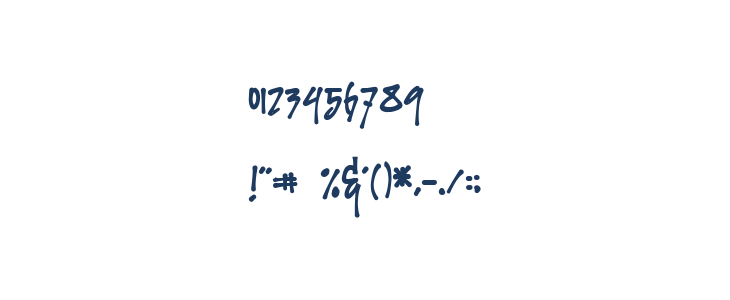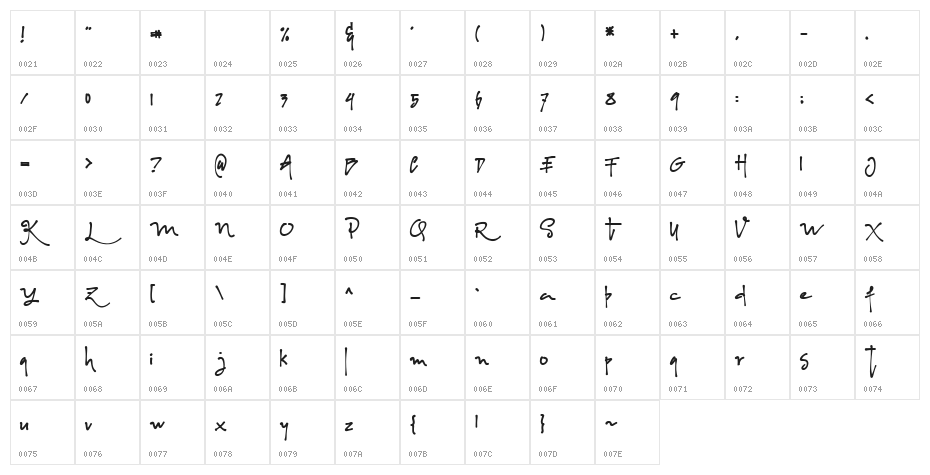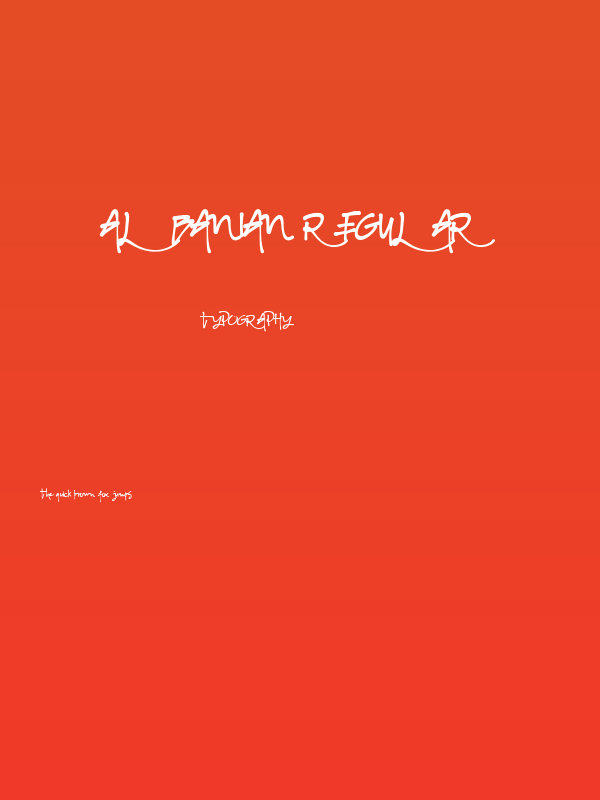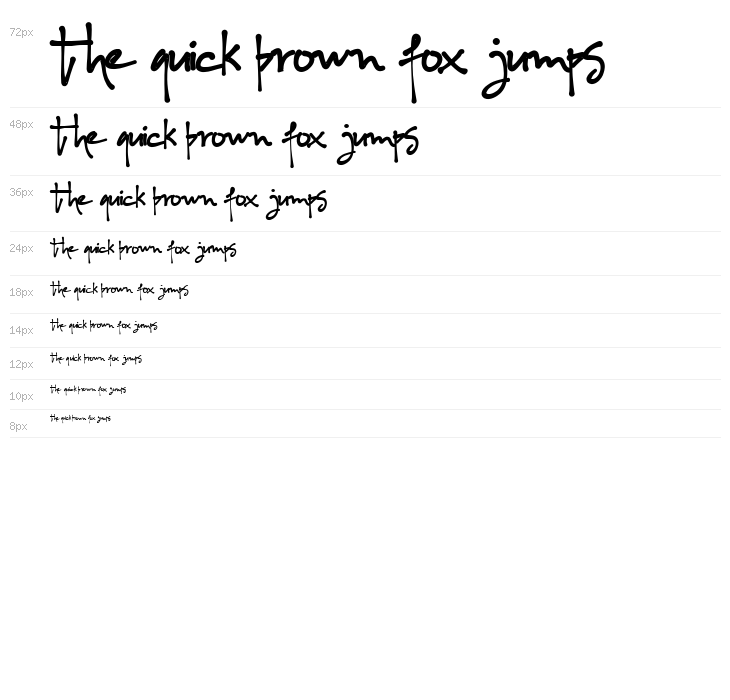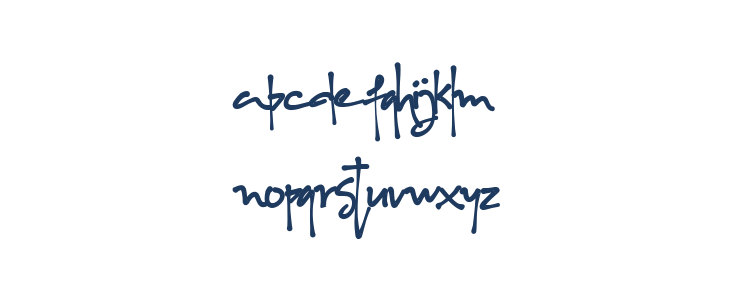
Albanian Regular Font
Albanian Regular Description
This font exhibits a dynamic and expressive handwritten style, characterized by its fluid and cursive letterforms. The uppercase letters are bold and slightly condensed, with unique flourishes and loops that add a sense of movement and personality. The lowercase letters maintain a consistent flow, with some characters featuring distinctive ascenders and descenders. The numerals are playful and maintain the same handwritten aesthetic, while the special characters blend seamlessly with the overall style. This font's organic and artistic appearance makes it ideal for projects that require a personal touch.